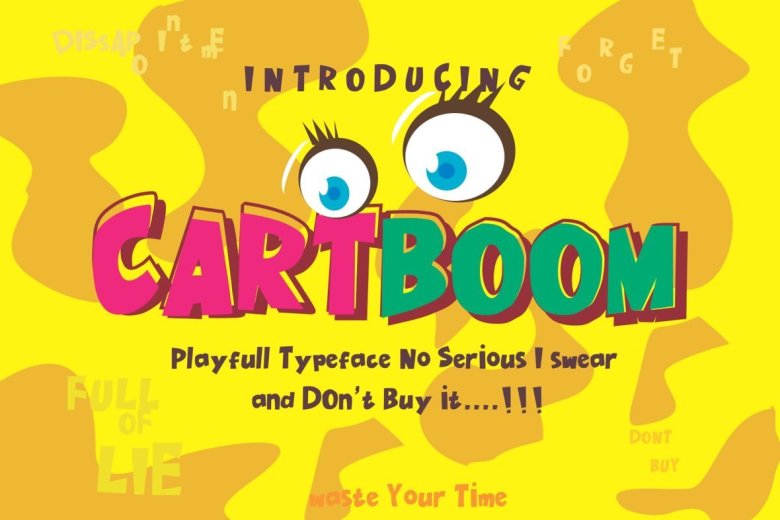
Cartboom Font
Cartboom font is a font that is used for design needs such as.display children book cartoon design humor snack logo magazine and book apparel kids invitation card.